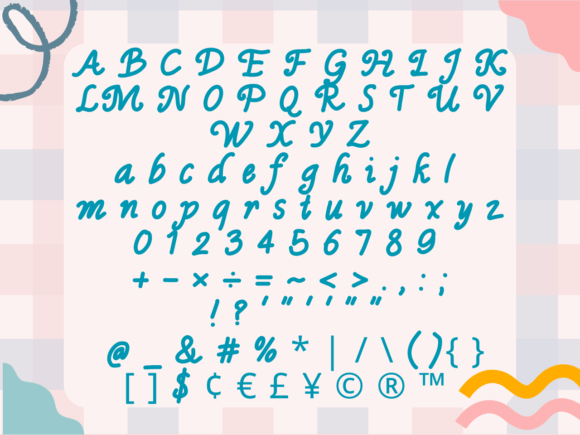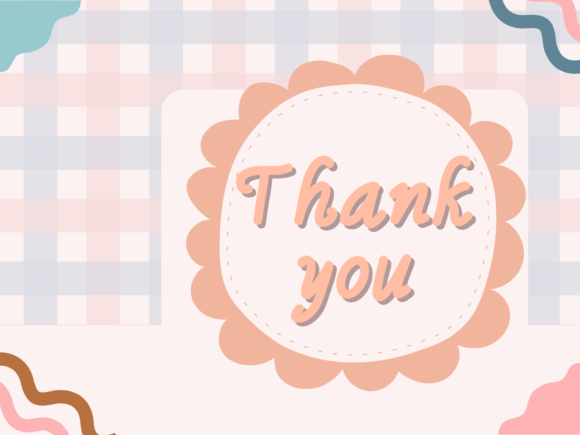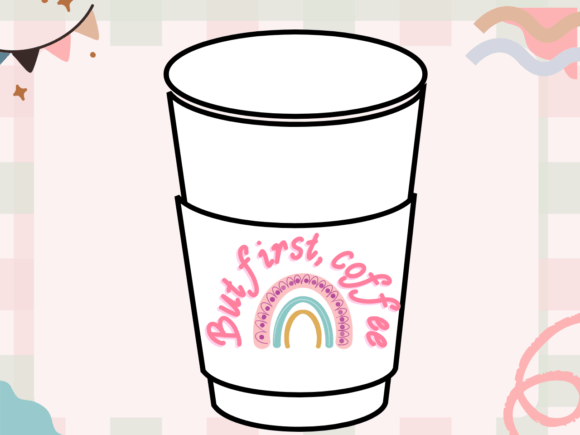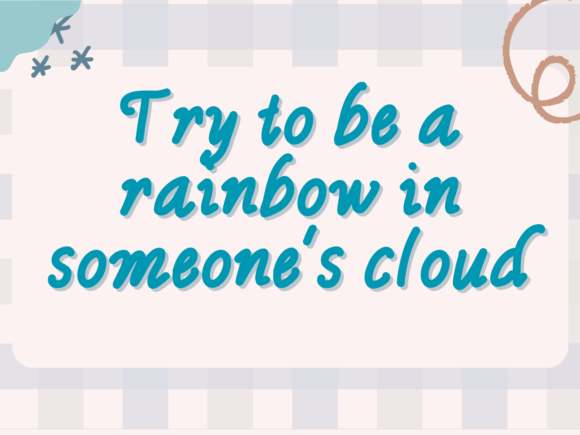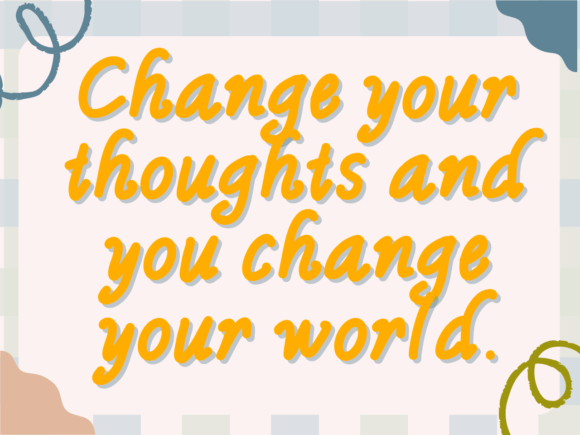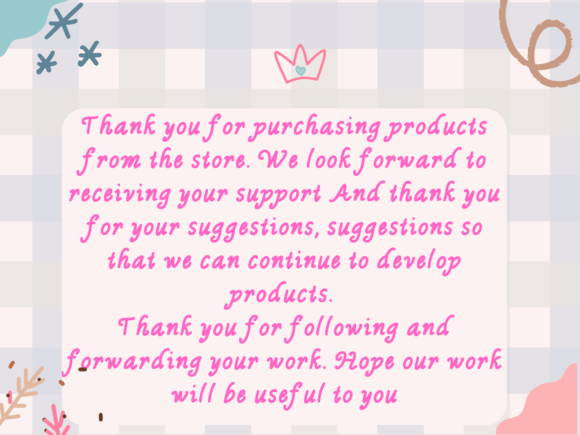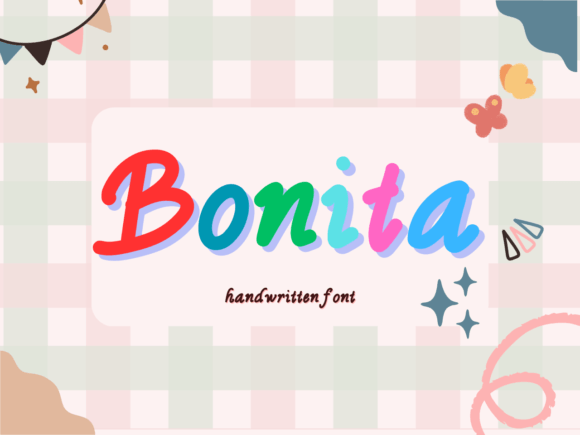
Discover the Unique Charm of Bonita Font: Elevate Your Designs with Creative Flair
In the world of typography, fonts play a crucial role in conveying the tone and personality of a design. For designers and crafters looking to add a touch of creativity and uniqueness to their work, the Bonita Font is an excellent choice. This distinctive font is designed to make your letters stand out, whether you’re working on lettering projects, designing greeting cards, wedding cards, or any other creative endeavor.
The Unique Design of Bonita Font
The Bonita Font boasts a unique design that sets it apart from more traditional fonts. Its characters are artistic and unconventional, giving your work an instant creative boost. With Bonita Font, you can add a touch of elegance and whimsy to your designs, making them more engaging and memorable. The font’s unusual style is perfect for designers who want to push the boundaries of conventional typography and explore new creative possibilities.
One of the key benefits of the Bonita Font is its versatility. This font can be used in a wide range of projects, from digital designs to print materials. Here are some ideas to get you started:
- Lettering Projects: Use Bonita Font to create stunning lettering pieces that showcase your creativity and skill. The font’s unique characters will add a touch of personality to your work.
- Greeting Cards: Design beautiful greeting cards for special occasions like birthdays, holidays, and weddings. The Bonita Font will add a touch of elegance and sophistication to your cards.
- Wedding Cards and Invitations: Make your wedding cards and invitations truly special with the Bonita Font. The font’s artistic characters will add a romantic and whimsical touch to your designs.
- Digital Designs: Use Bonita Font in your digital designs, such as social media graphics, blog posts, and website headers. The font’s unique style will help your designs stand out in a crowded online space.
Why Choose Bonita Font?
With so many fonts available, why choose Bonita Font? Here are a few compelling reasons:
- Unique Design: The Bonita Font features a truly unique design that will set your work apart from others.
- Creative Freedom: With Bonita Font, you’ll have the creative freedom to experiment with new and innovative design ideas.
- Versatility: Bonita Font can be used in a wide range of projects, from digital designs to print materials.
Tips for Using Bonita Font Effectively
To get the most out of Bonita Font, here are a few tips to keep in mind:
- Experiment with Different Sizes: Try using Bonita Font in different sizes to create visual interest and hierarchy in your designs.
- Pair with Other Fonts: Experiment with pairing Bonita Font with other fonts to create a unique and harmonious design.
- Use in Combination with Images: Use Bonita Font in combination with images to create stunning visual compositions.
| Font Name | Bonita Font |
| Author | Pukka De |
In conclusion, the Bonita Font is a unique and creative font that can add a touch of elegance and whimsy to your designs. With its artistic characters and versatile design, this font is perfect for designers and crafters looking to push the boundaries of conventional typography. Whether you’re working on lettering projects, designing greeting cards, or creating digital designs, Bonita Font is an excellent choice. So why not give it a try and see how it can elevate your designs to the next level?